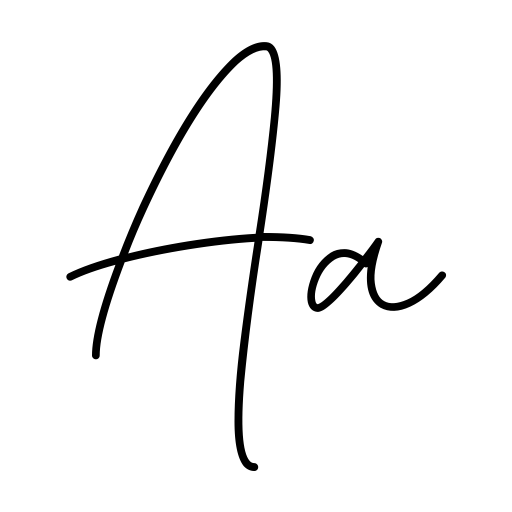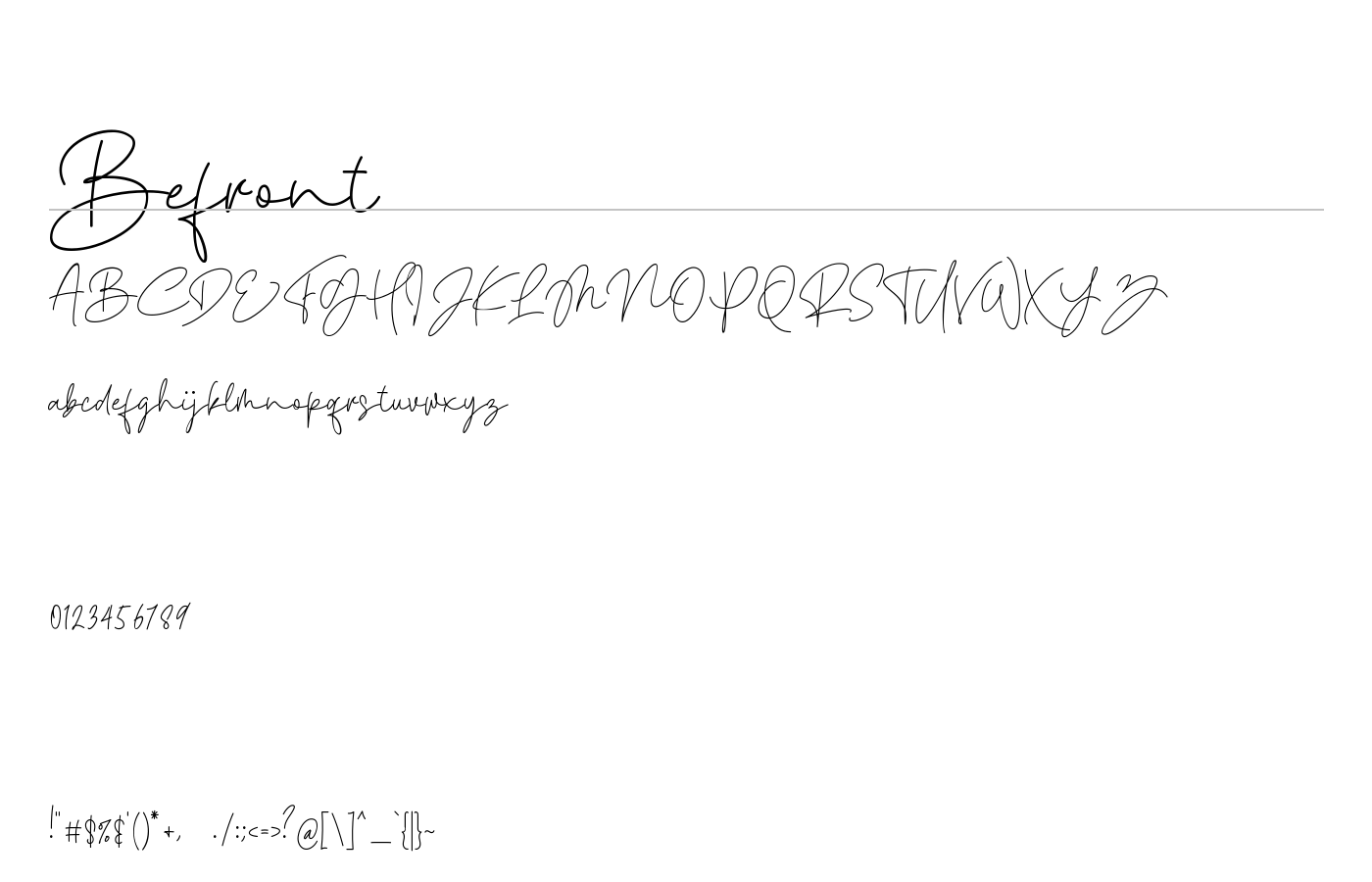
Befront is a delicate, handwritten script font with an elegant and airy feel, featuring slender, flowing strokes and subtle irregularities that add a natural, personal touch. Its tall, narrow letterforms and refined curves make it perfect for stylish branding, wedding invitations, or any design needing a graceful and intimate aesthetic. This font works best in logos, headlines, or decorative text where a sophisticated, handwritten look is desired.
Befront Font